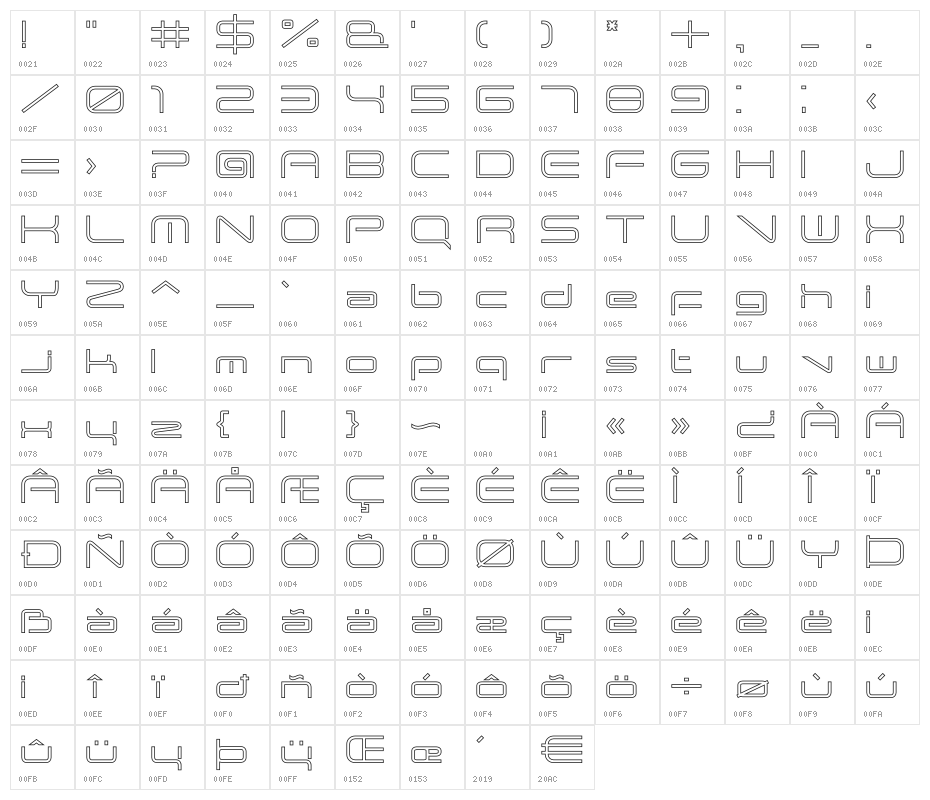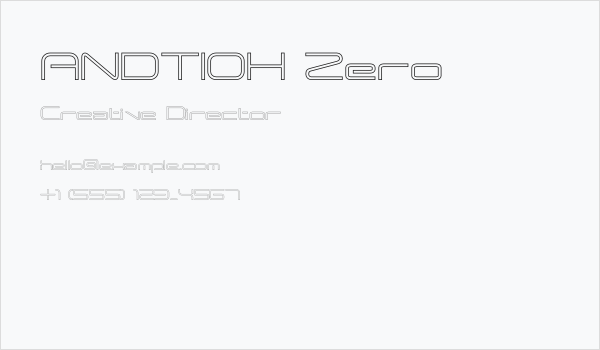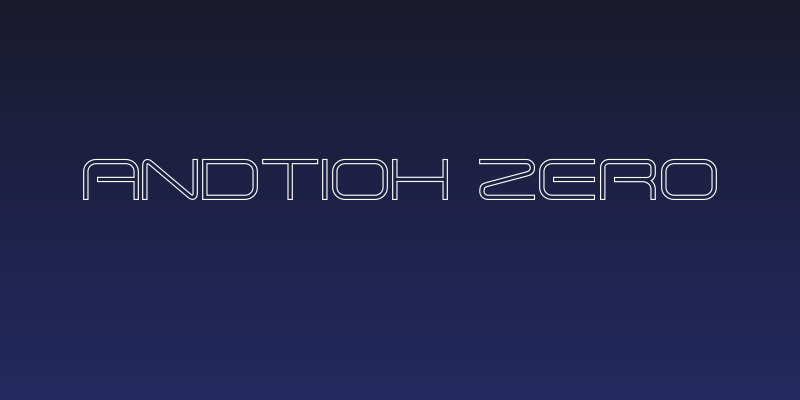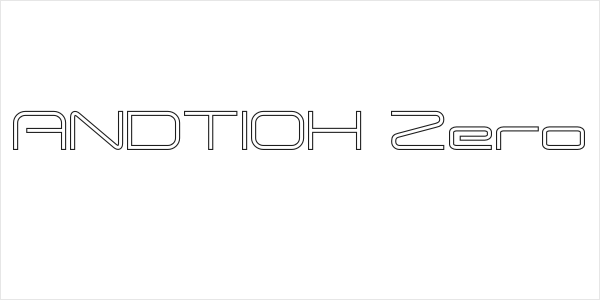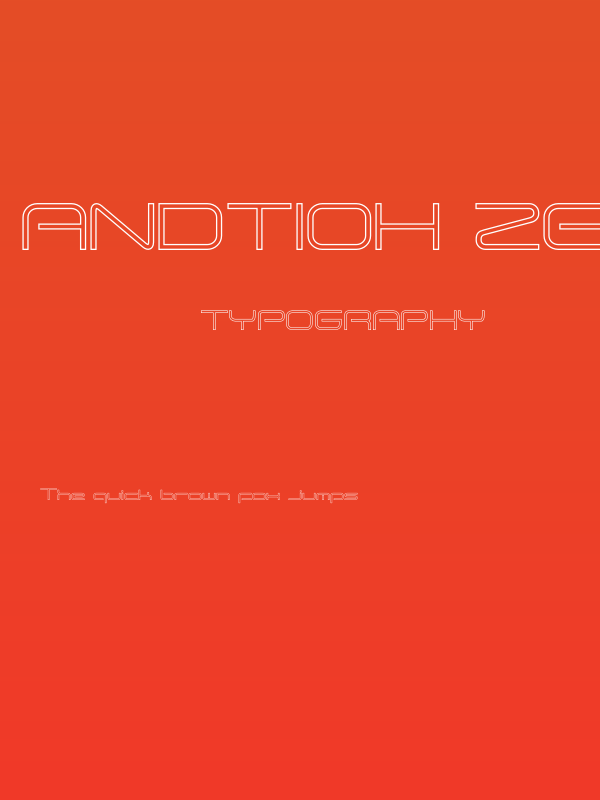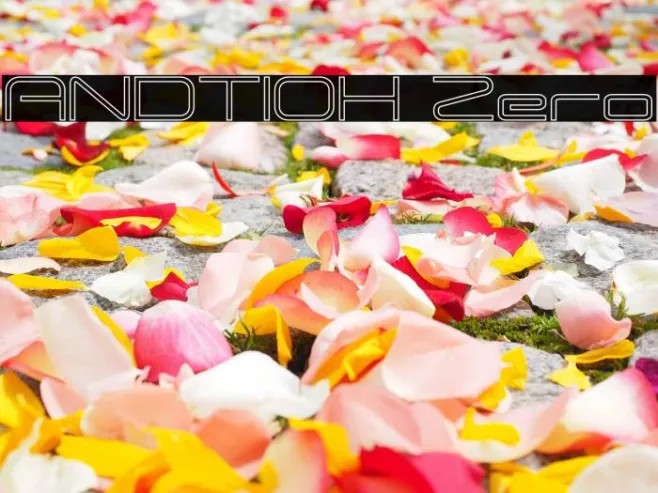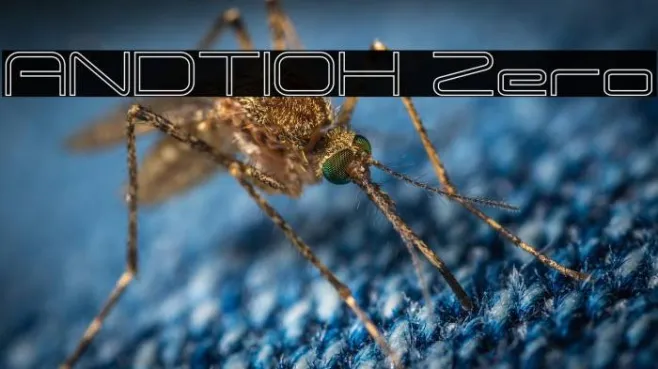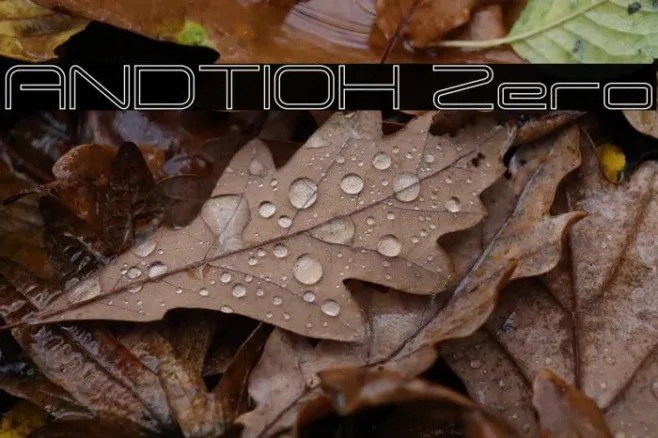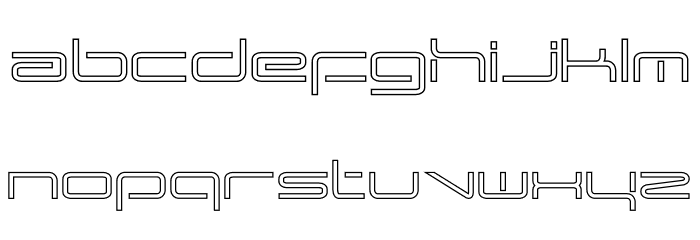
ANDTIOH Zero Font
ANDTIOH Zero Description
This font features a modern, geometric design with an outline style that gives it a futuristic and technical appearance. The characters are constructed with clean, straight lines and rounded corners, creating a sense of precision and clarity. The uppercase and lowercase letters maintain a consistent height, contributing to a uniform look. The numerals and special characters follow the same design principles, ensuring a cohesive visual identity across all glyphs. The font's open structure and minimalistic approach make it suitable for digital and tech-related projects.
| Use Case | Logos, Headlines, Digital Interfaces |
| Proposed Projects | Ideal for tech branding, digital interfaces, futuristic posters, and sci-fi themed designs. |